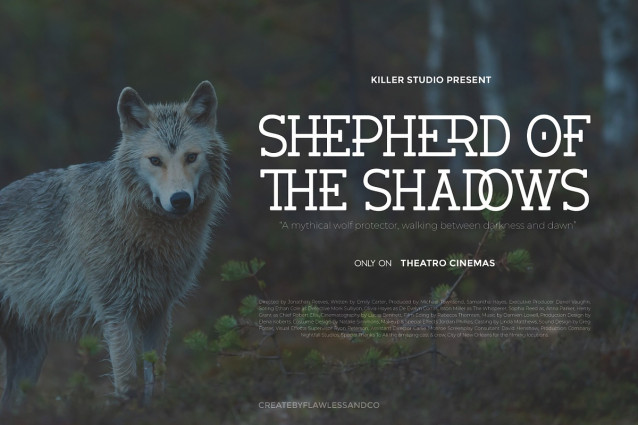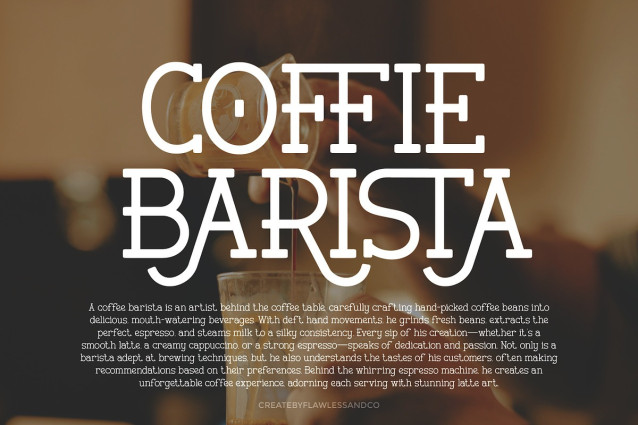
Verhole Font
Verhole Font is a bold and refined slab serif font that merges modern design with classic charm. Characterized by strong verticals, squared serifs, and smooth curves, Verhole offers a unique typographic voice that is both stylish and confident. Perfectly suited for branding projects, logo designs, editorial layouts, posters, and signage, Verhole stands out with its distinctive blend of geometry and elegance. Each character is designed with precision and a creative flair that adds personality to your compositions without compromising readability. Verhole includes stylish ligatures and alternate characters that allow you to experiment and create typographic variation for more expressive results.